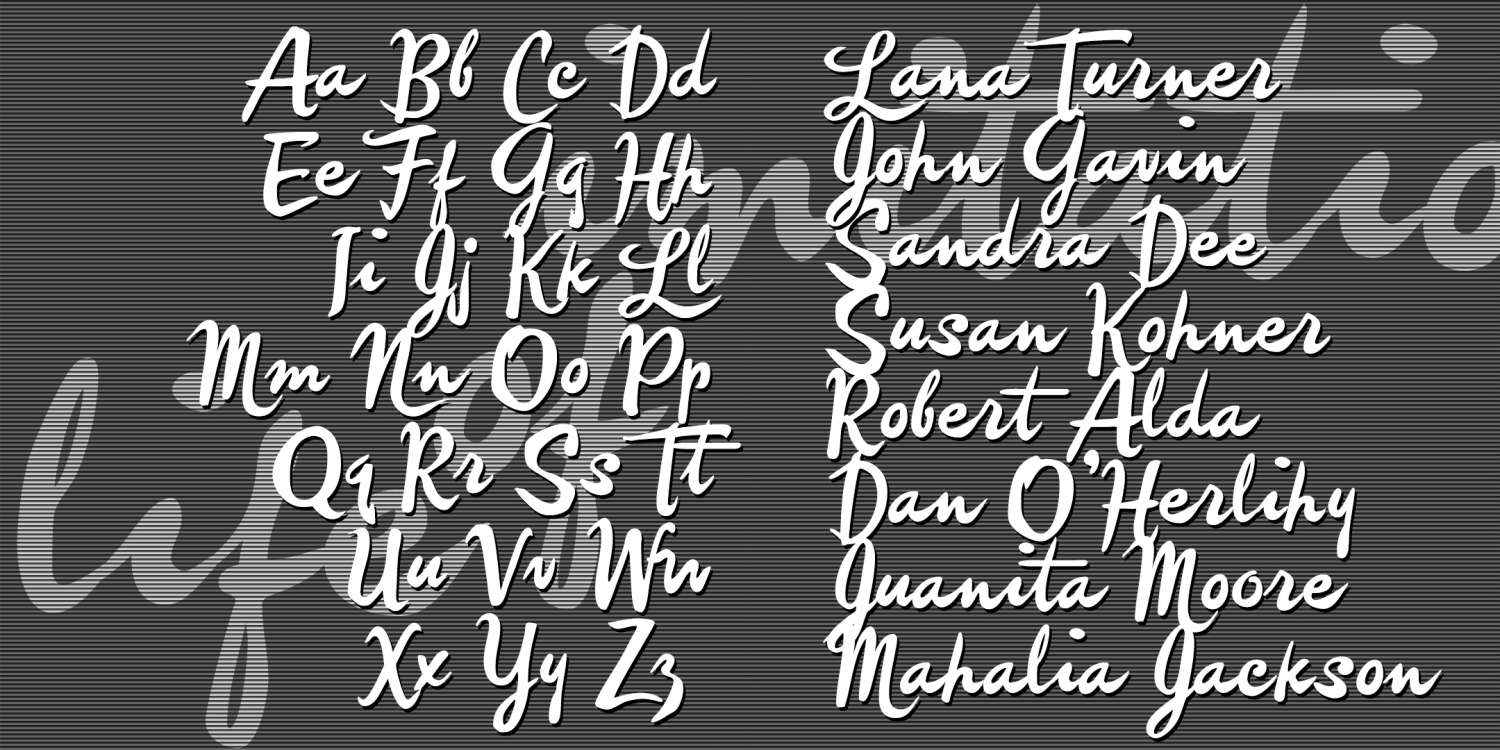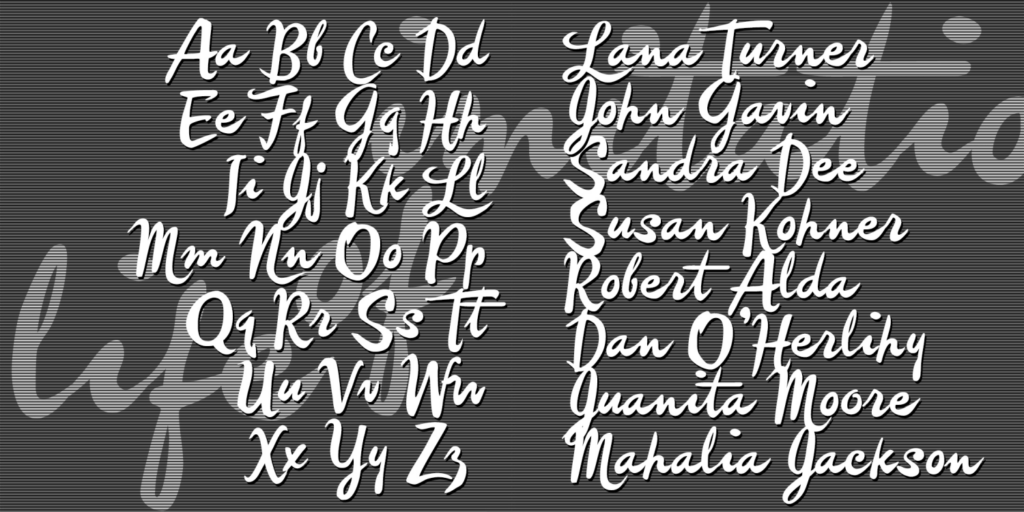
Imitation
About Imitation
IMITATION is a free-spirited brush script, more a fashion statement than the work of a diligent sign painter. Imitation was inspired by the credits of two soapy Lana Turner films, Imitation of Life (1959) and Madame X (1963). They are credited to different…